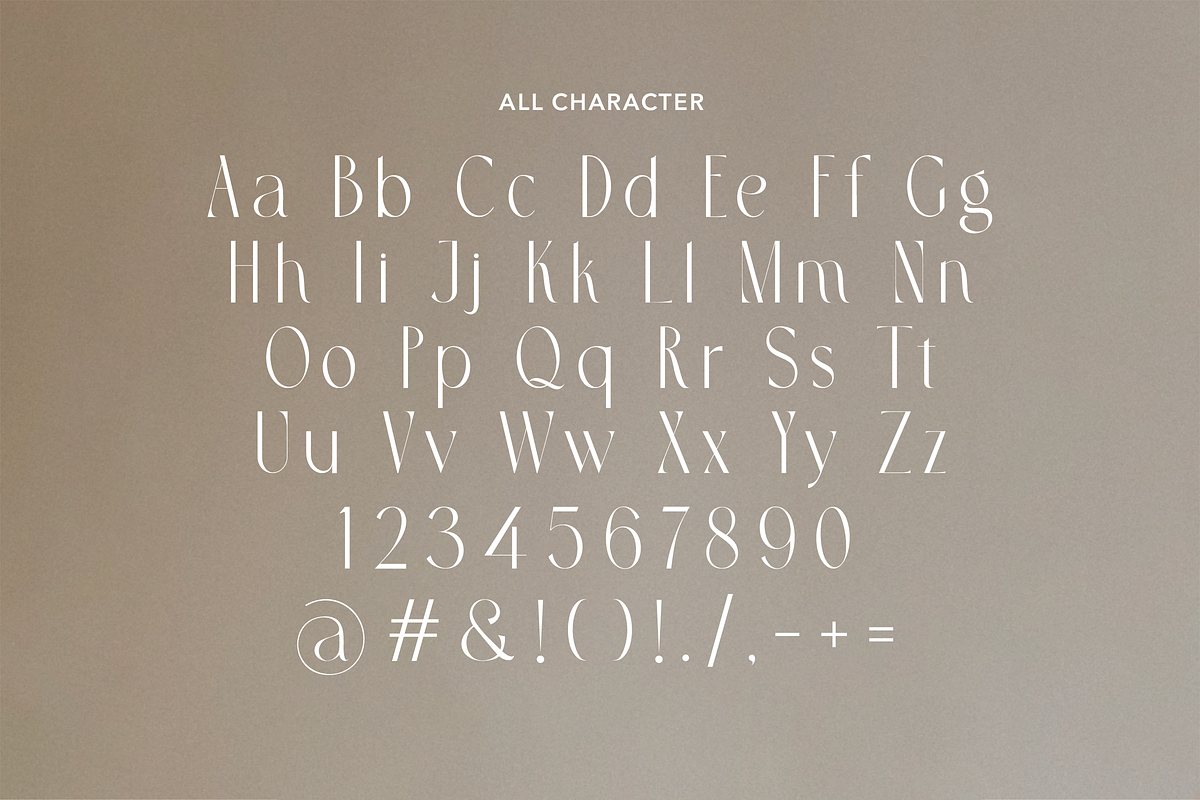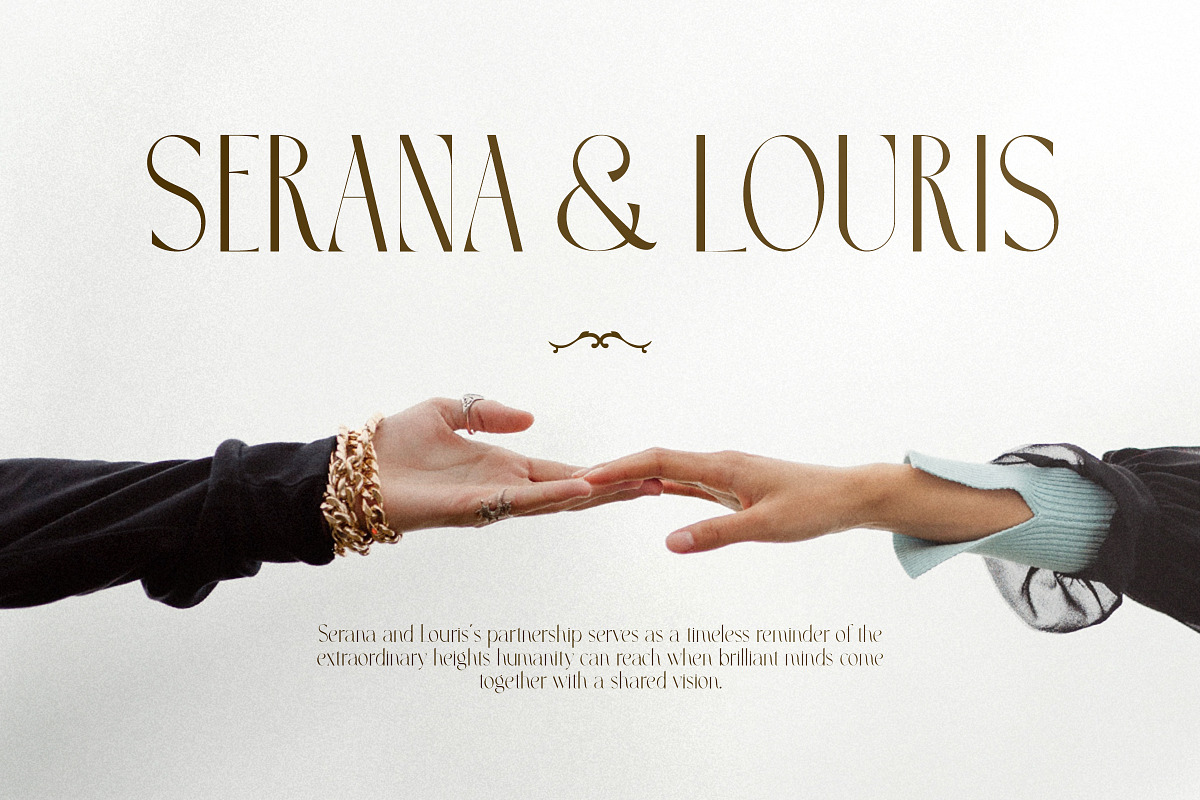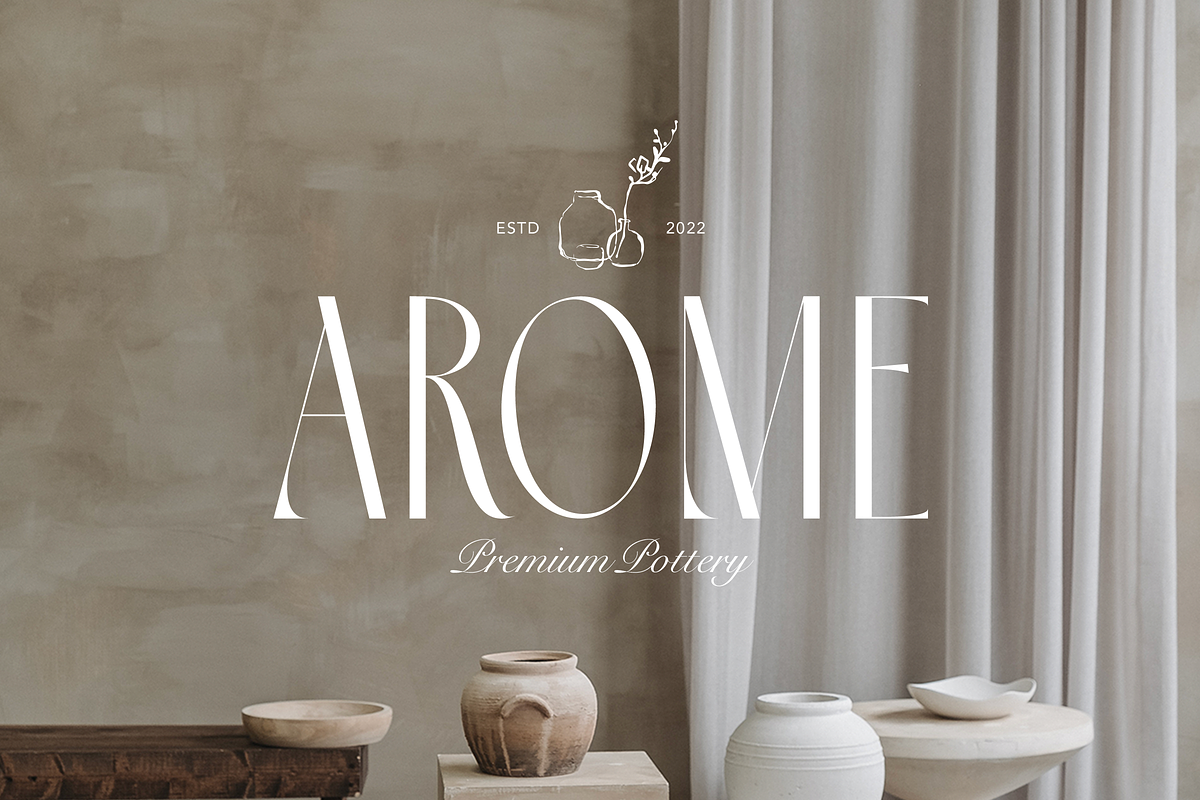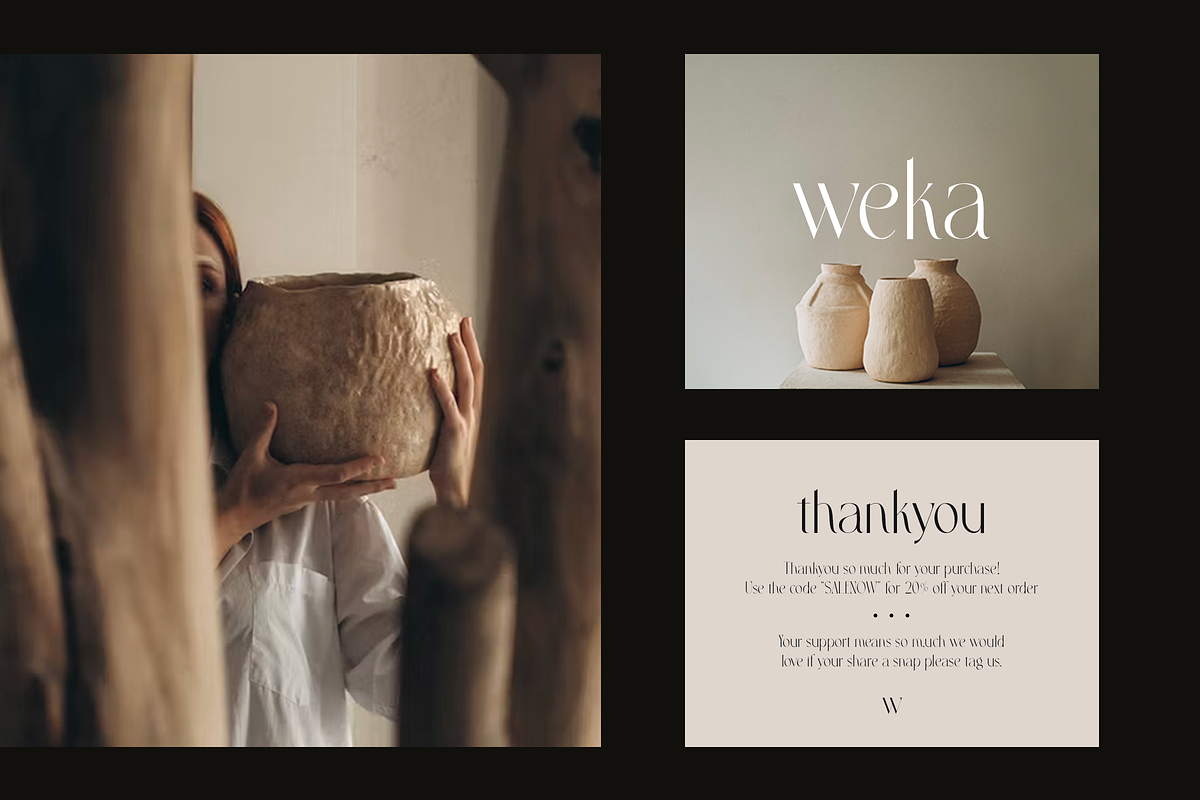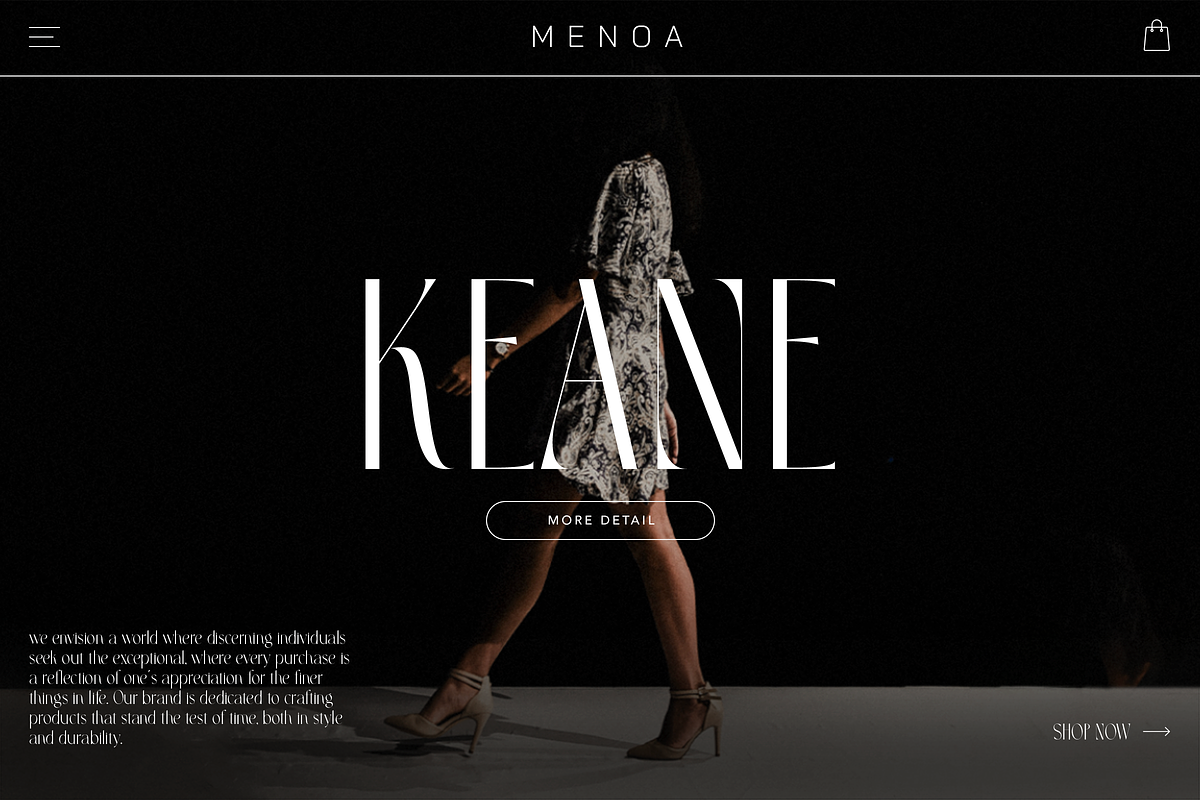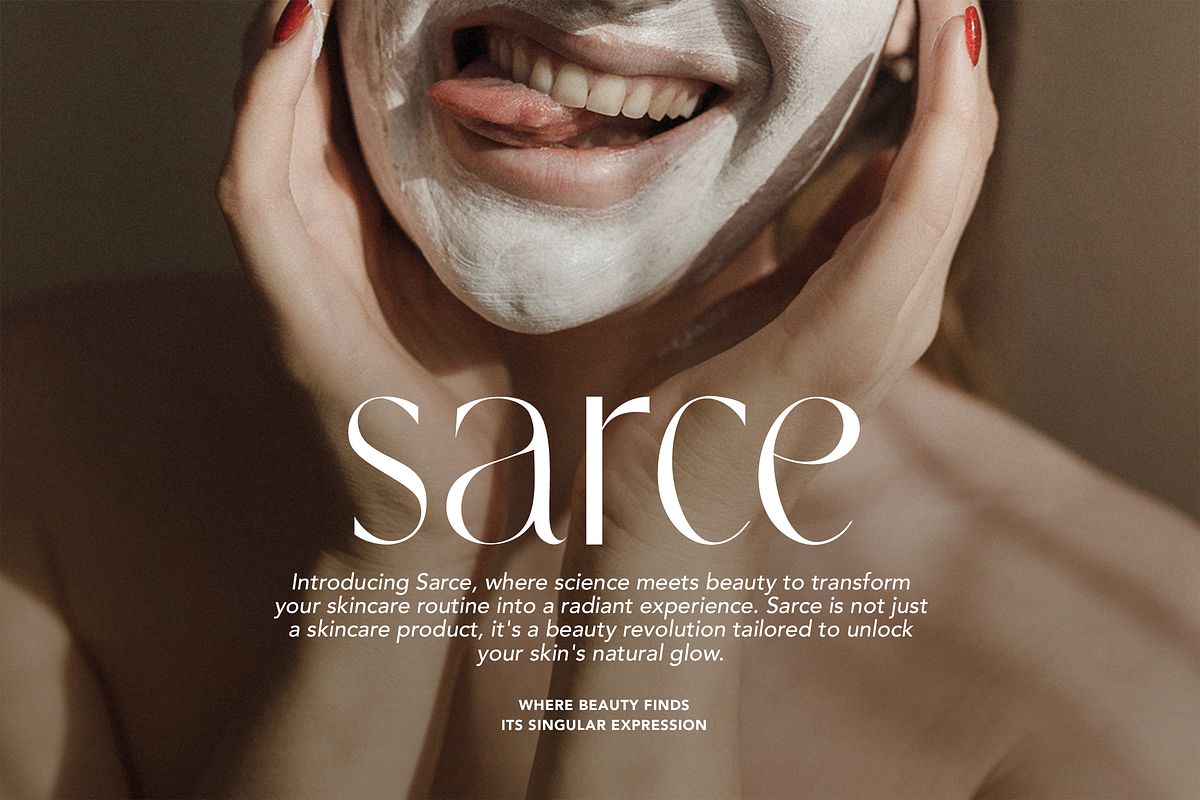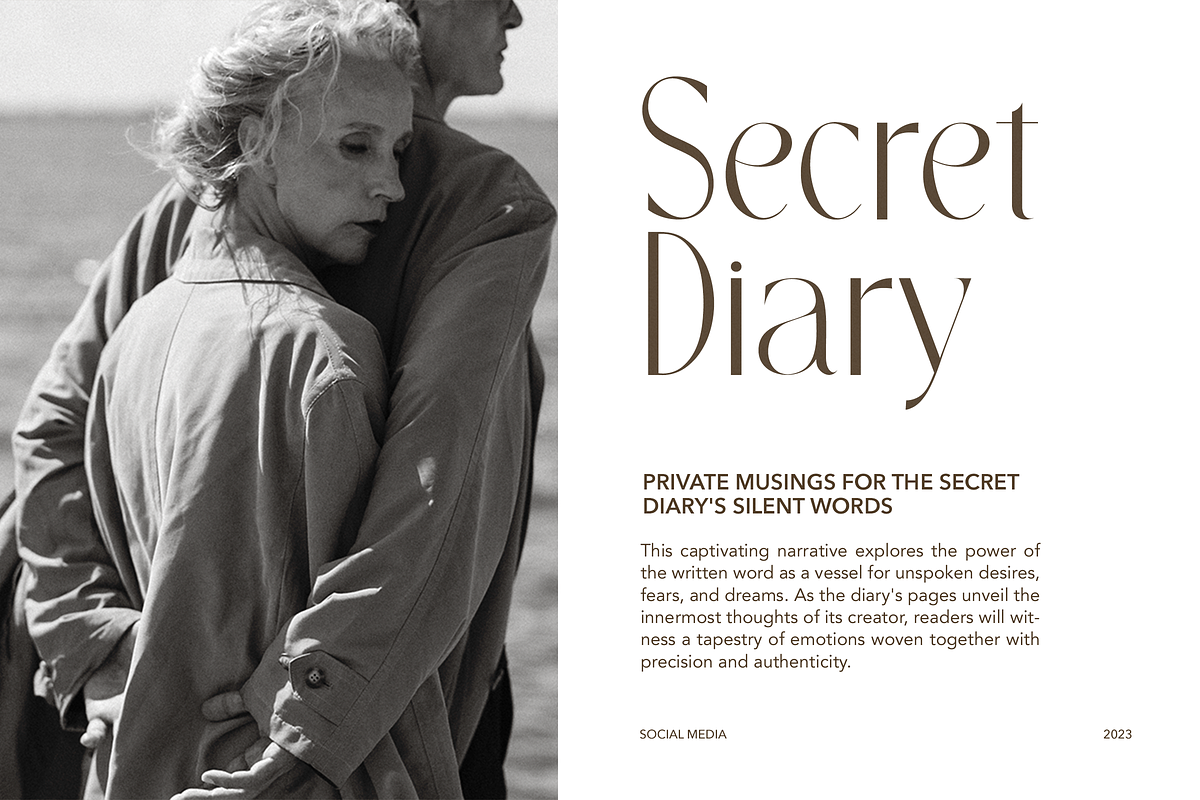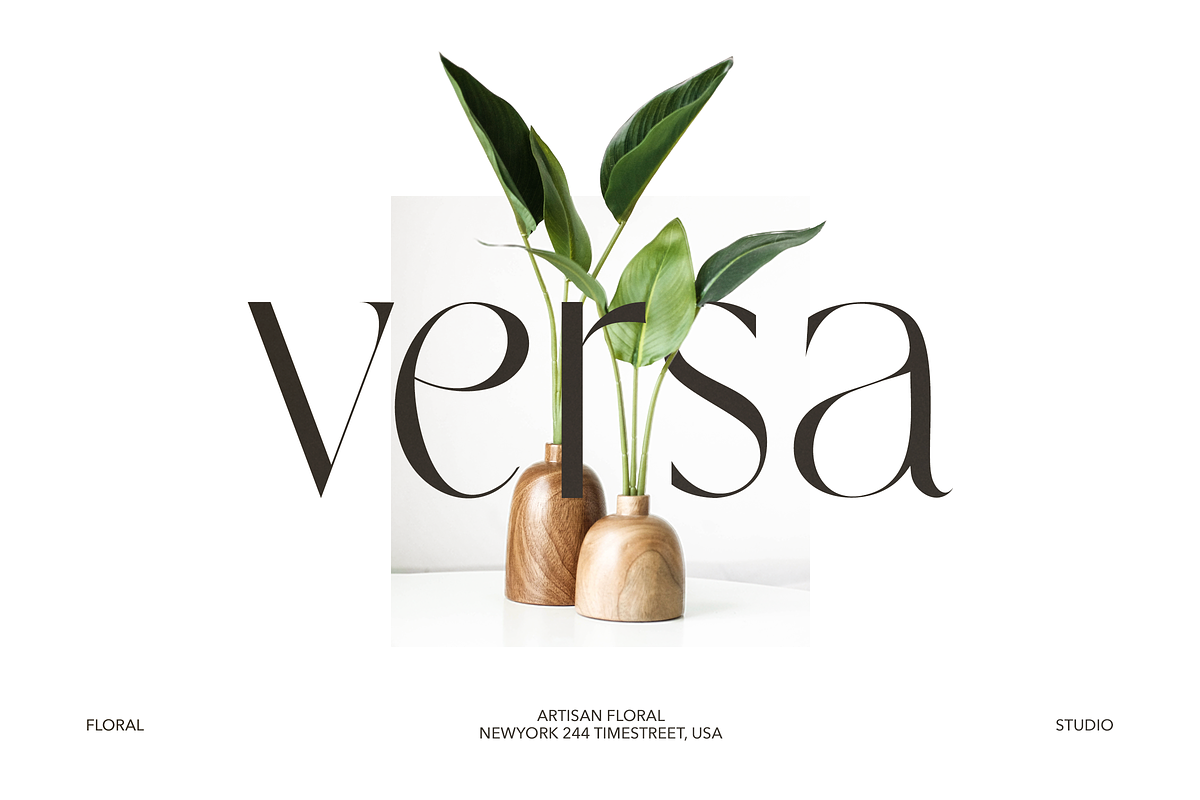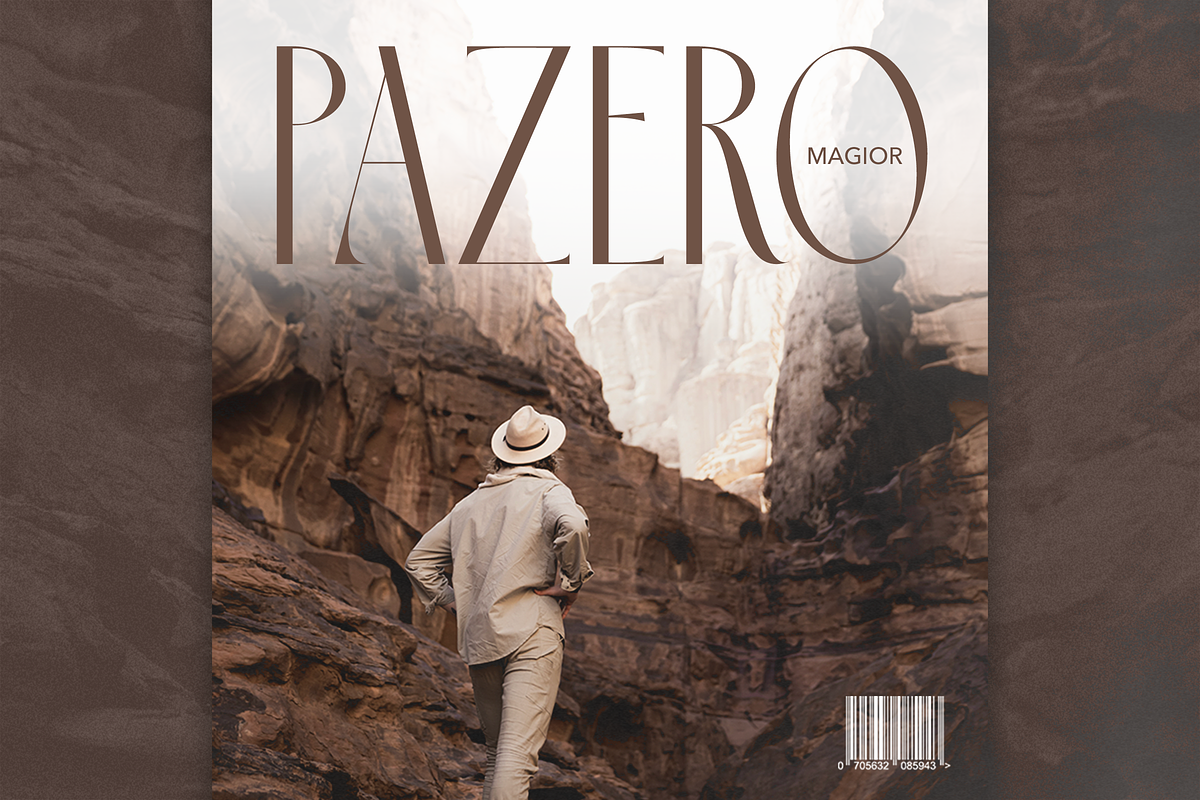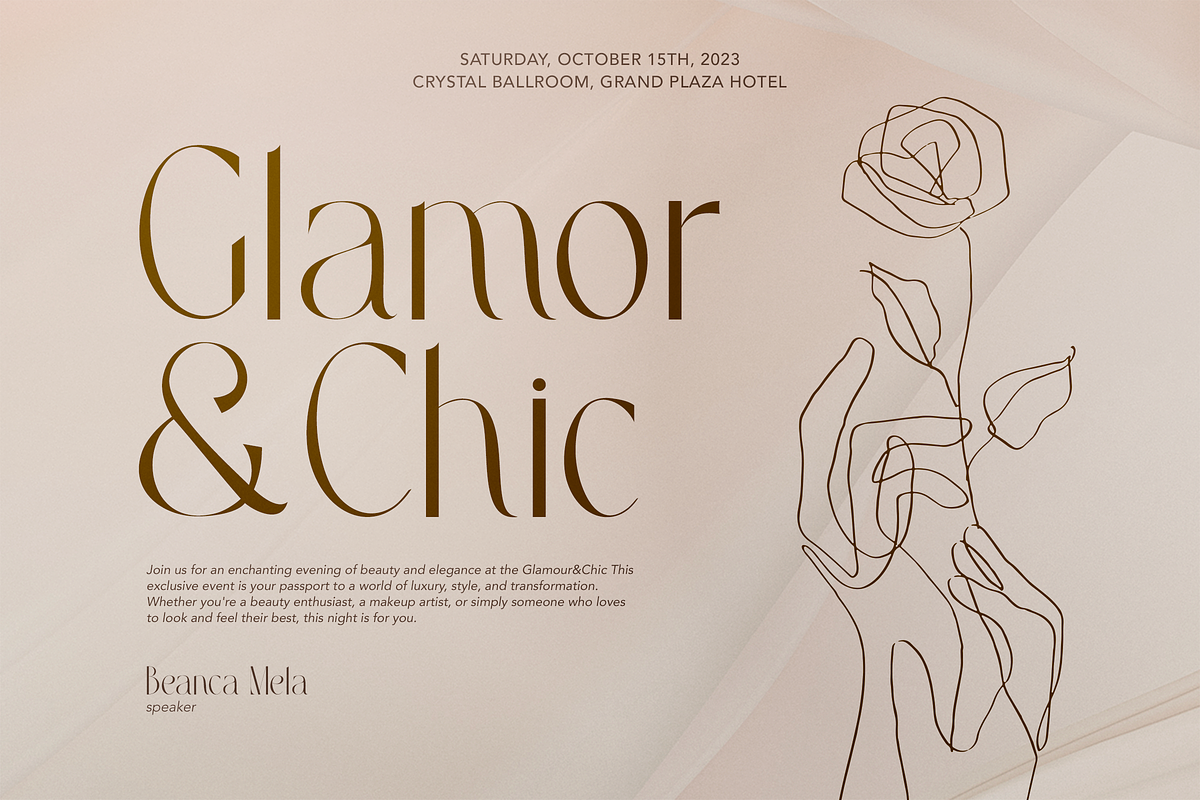
Navue - Beauty Sans
The Navue font is a typeface designed with an elegant and feminine style, making it suitable for enhancing the quality of your product branding. This font is well-suited for various purposes, including displays, printing, branding, and many others.